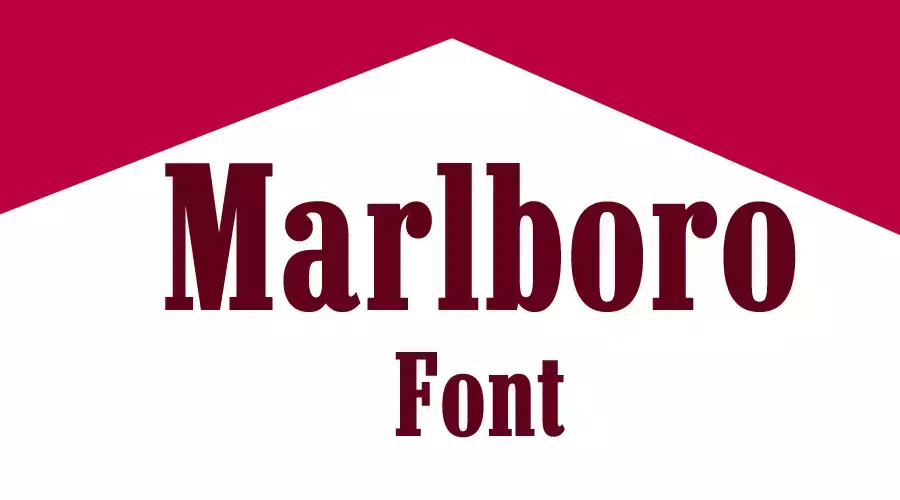
The Marlboro Font
What font is used for Marlboro cigarettes?
Marlboro is a brand of cigarettes produced by Philip Morris USA, a division of Altria Group. The Marlboro brand created a custom font specifically for the brand’s packaging and other materials. The Marlboro brand is known for its distinctive cowboy-themed marketing, which often features rugged, western-style typography. After our team’s analysis, we found that the font is very similar to “Neo Contact,” designed by American Type Founders and published by Linotype. But later we found that the logo of the Marlboro brand inspired the design of a similar font called “Marlboro font.” We will provide all the details about the Marlboro font.
About the Font
The Marlboro font is a slab serif typeface that was created to be used as a logo for the Marlboro brand of cigarettes. The font was designed by German typographer Dieter Steffmann in 2003, and it is similar to the serif font used in the Marlboro logo. The font is copyrighted under the name “Typographer Mediengestaltung.” It is simply a font that was designed to mimic the style of the Marlboro logo.
The Marlboro font is characterized by its strong, bold lines and squared-off serifs, which give it a distinctive, rugged appearance. It is suitable for use in a wide range of design projects, including packaging, advertising, and branding materials. Despite its rough, western-inspired appearance, the font is also highly legible, making it easy to read even at small sizes.